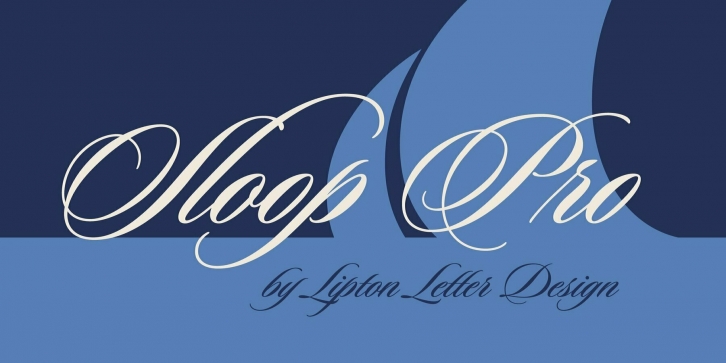
Richard Lipton originally released Sloop Script in 1994 through Font Bureau. Sloop Script Pro is the new, improved, rethought version, offering expanded language support and smart OpenType features. All of the new enhancements can be activated via human-readable stylistic sets whose names precisely describe what they do: “Entry Swashes,†“Exit Swashes,†“Smaller Caps,†and so on. Every weight of Sloop Script includes the available styles. Applying these features is straightforward and, thanks to automatic ligatures and contextual alternates, Sloop Script sets beautifully right out of the box.